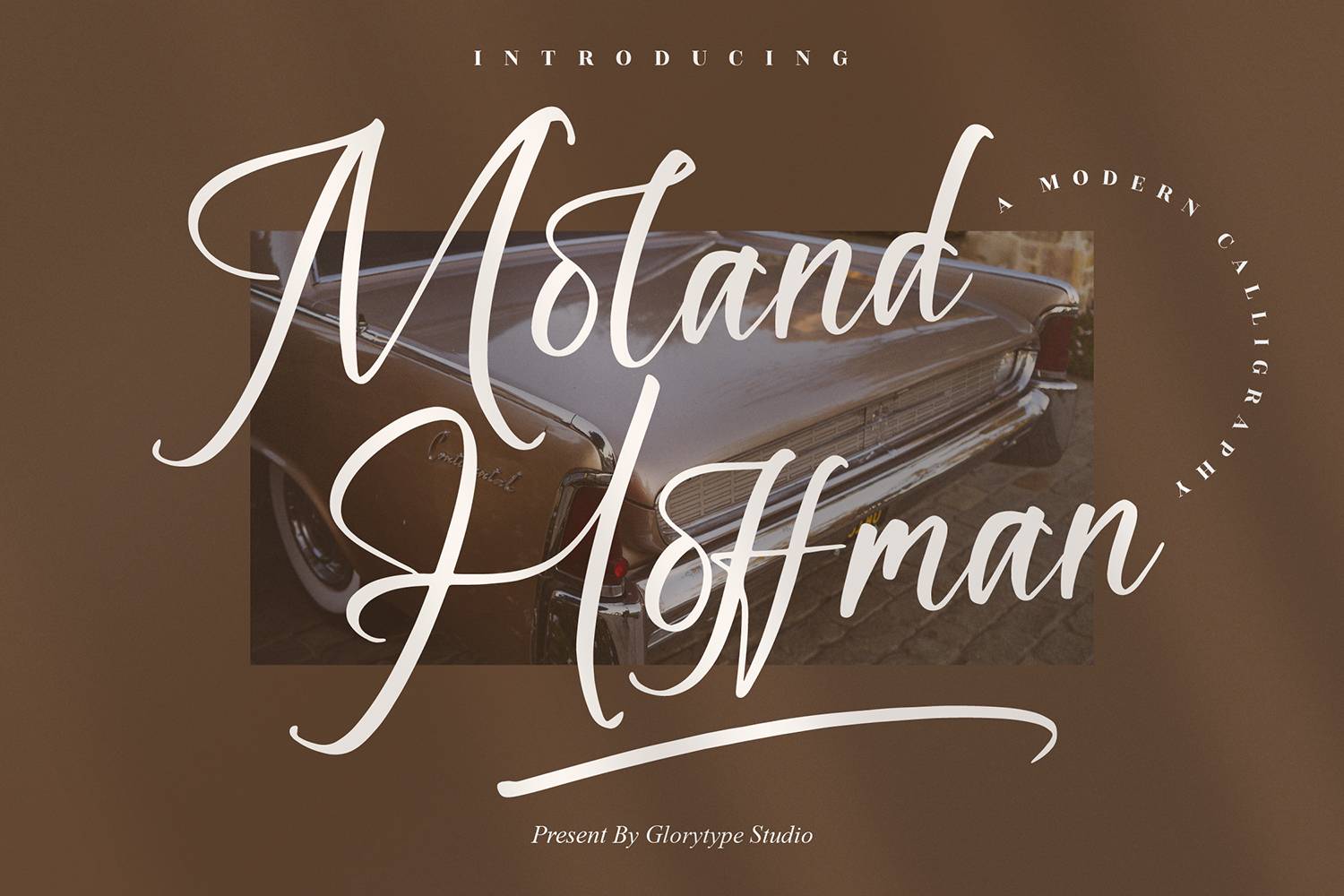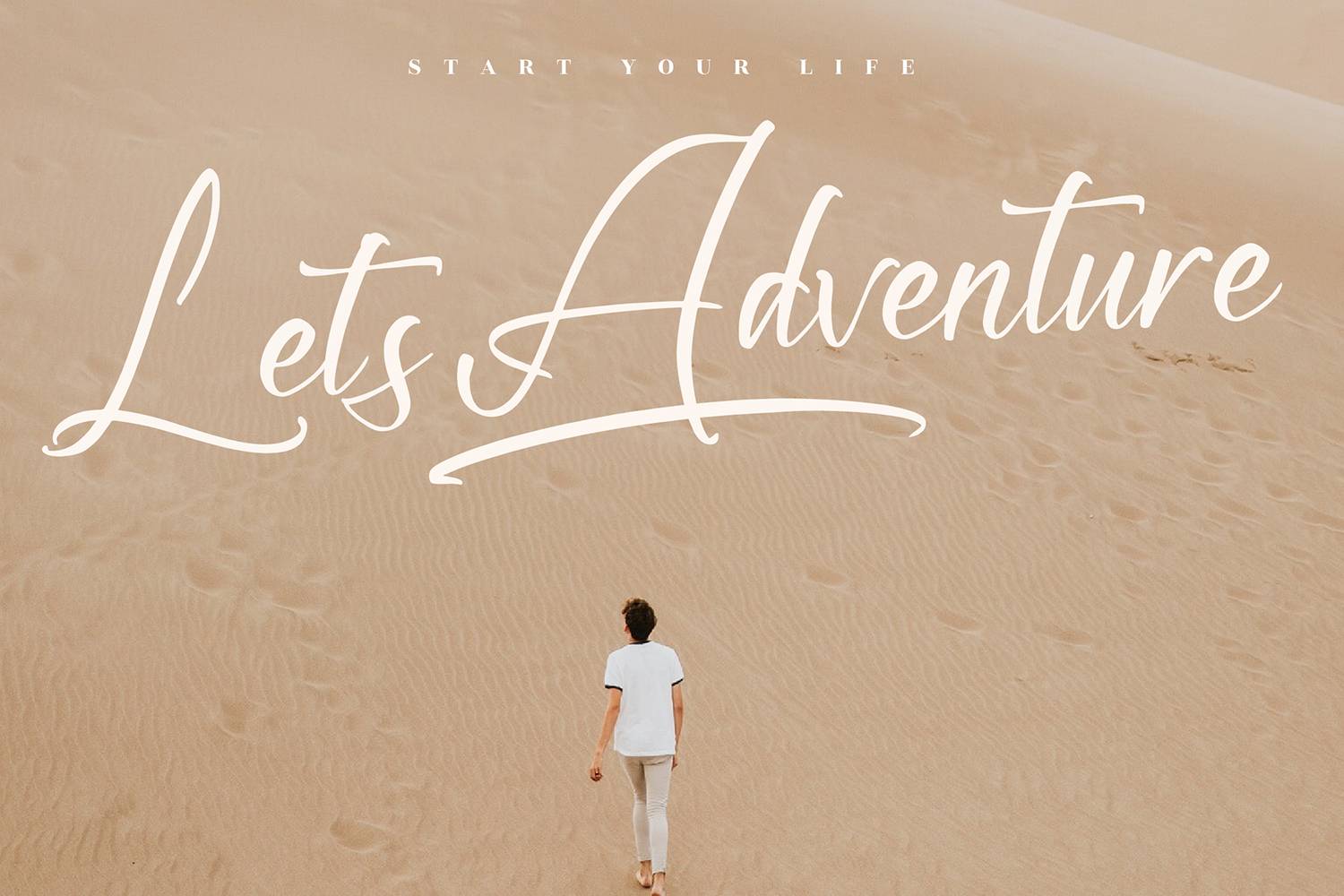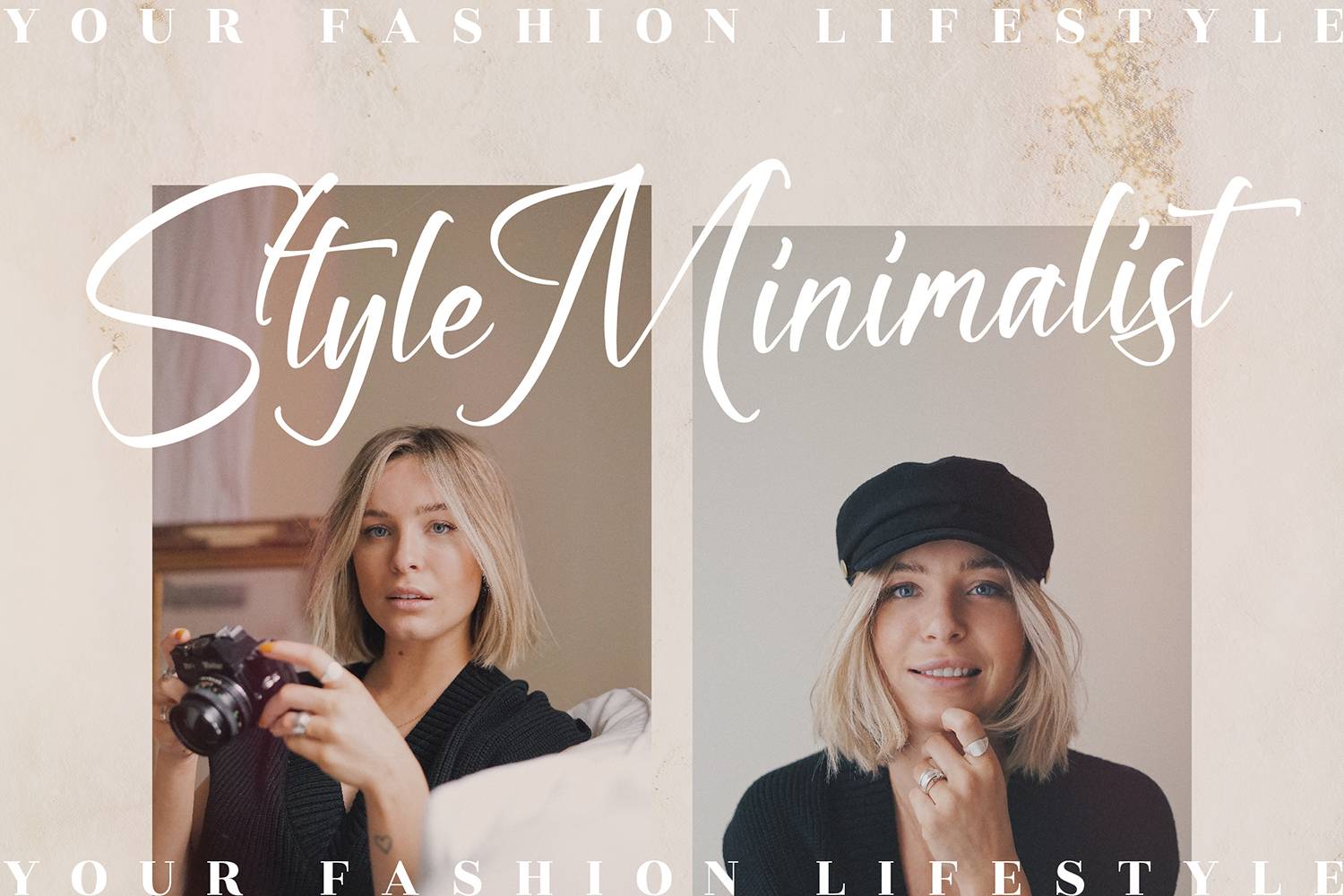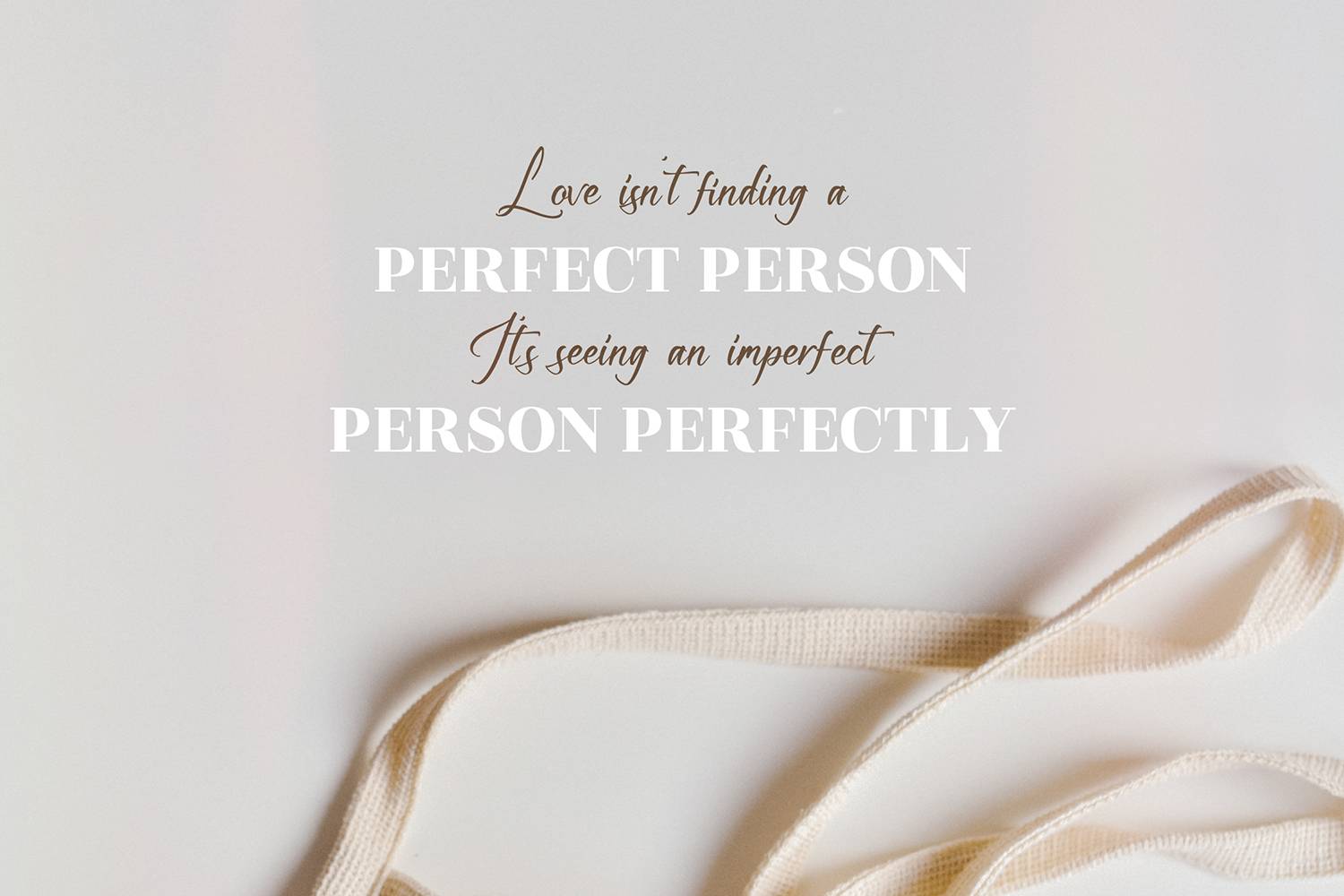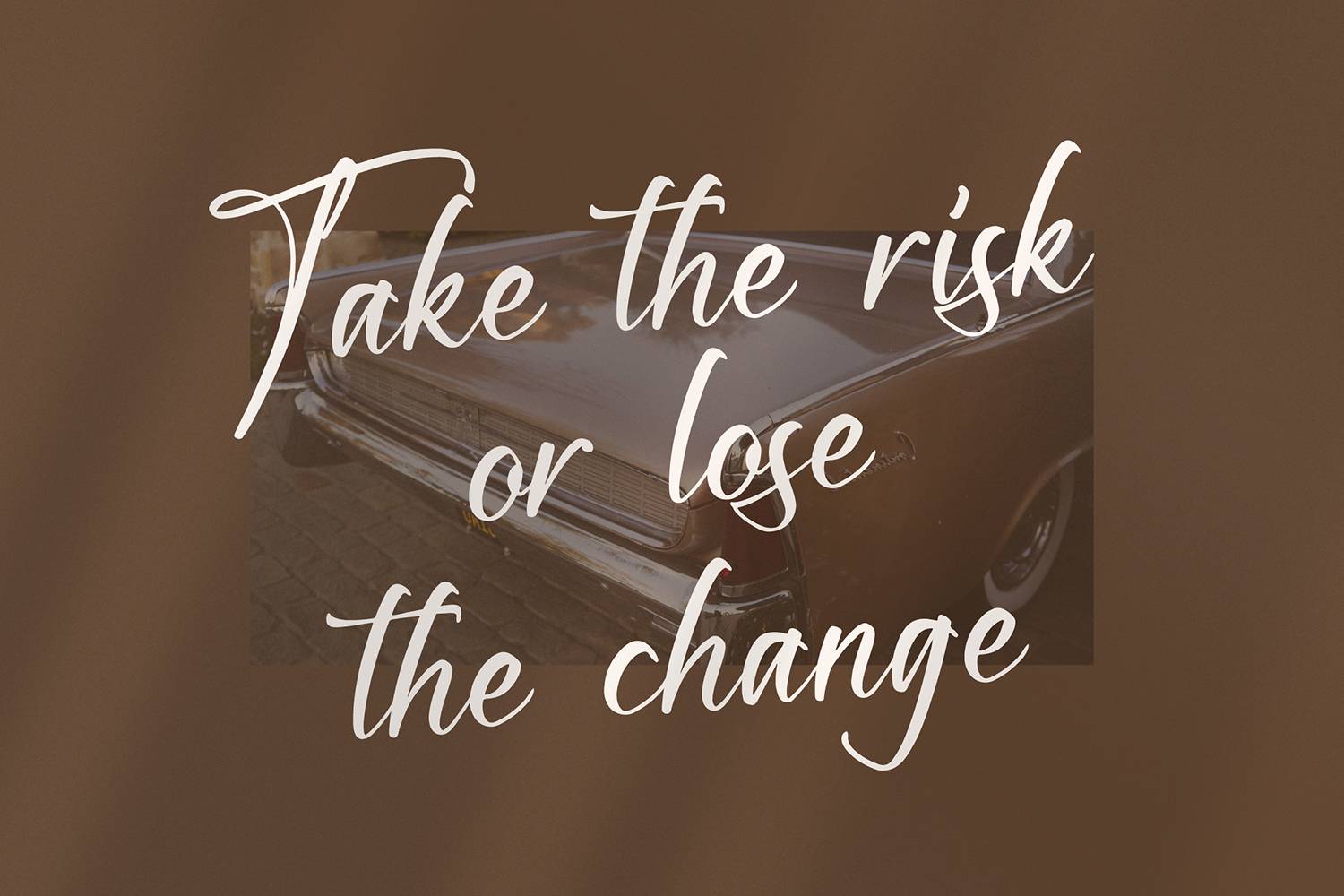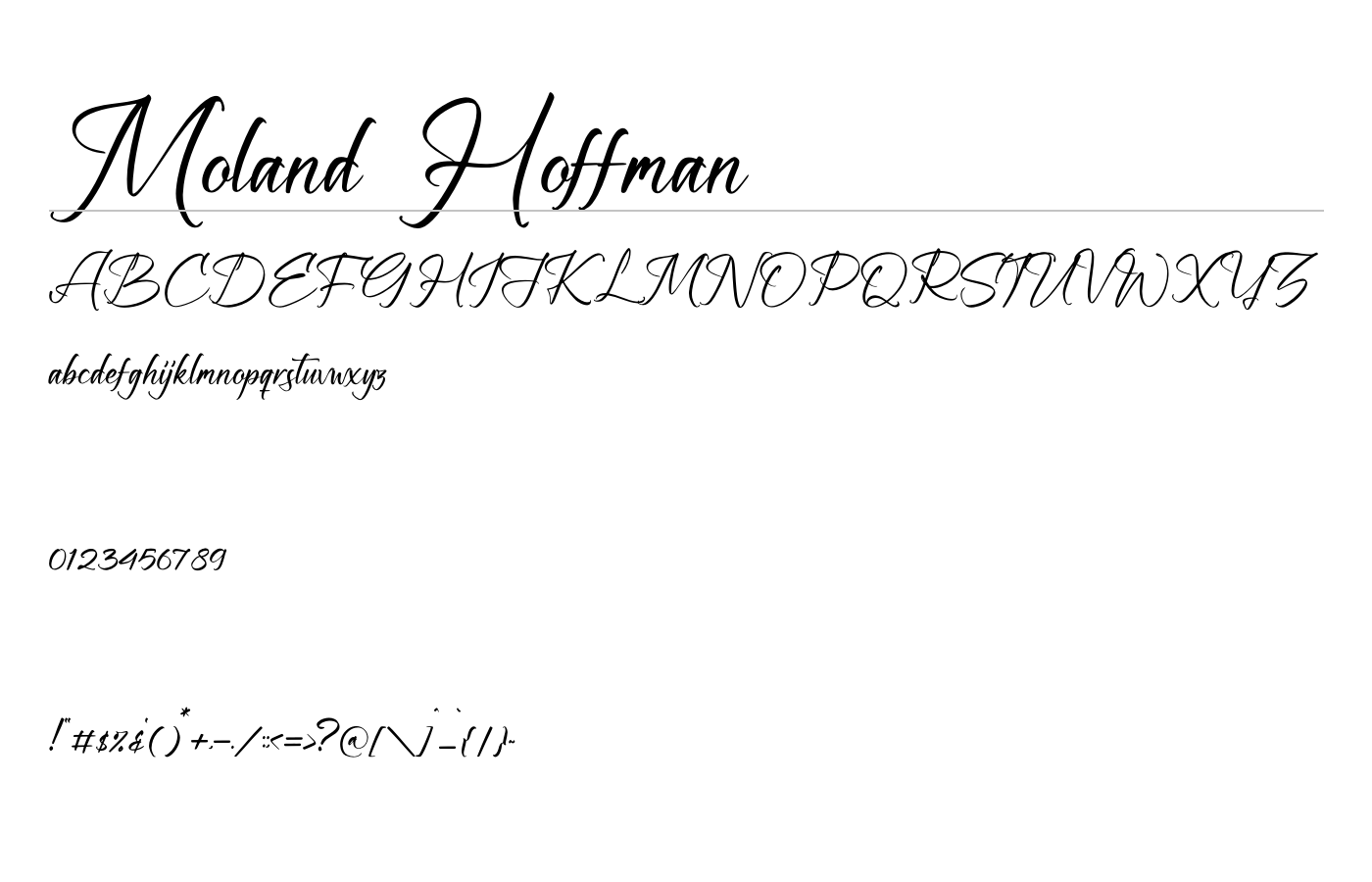
Moland Hoffman is an elegant script font characterized by its flowing, delicate strokes and sophisticated cursive style. It features a light weight with a refined contrast between thick and thin lines, giving it a graceful and luxurious feel, perfect for formal invitations, branding, and upscale design projects. This font’s airy, handwritten quality adds a touch of personality and charm, making it ideal for fashion, beauty, and wedding-related uses where a classy yet approachable look is desired.
Moland Hoffman Font
About Moland Hoffman Font